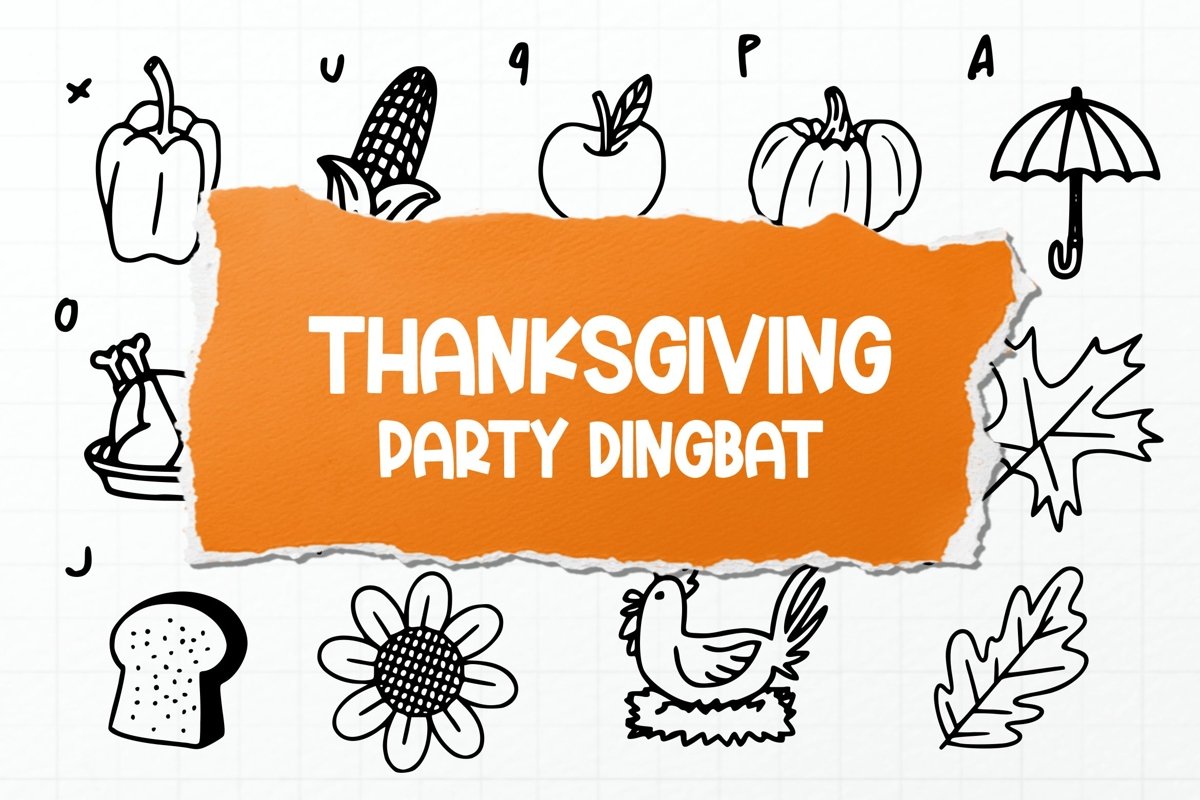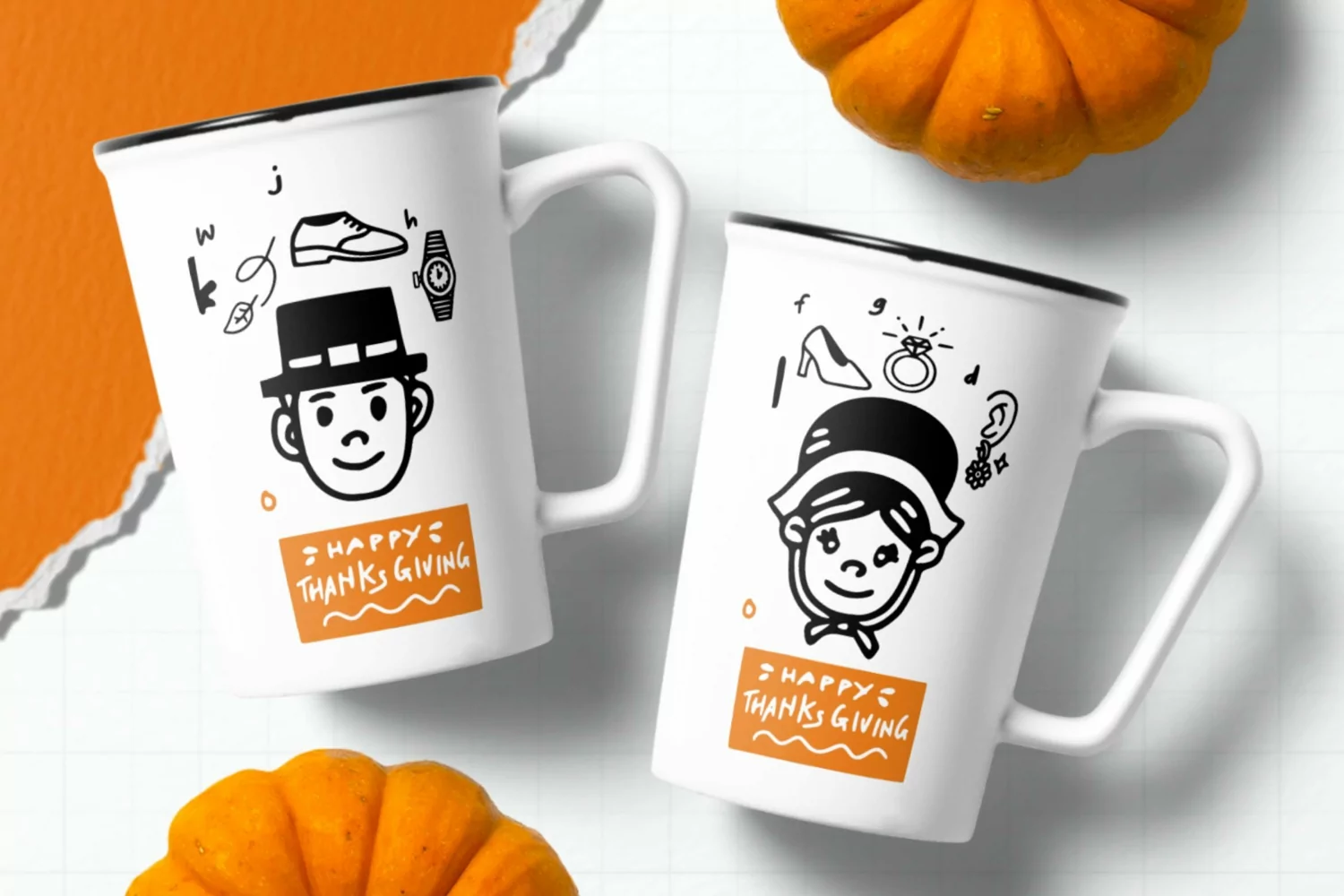
Thanksgiving Party Dingbat Font for some designs such as the logotype, brand, packaging, quotes, music poster, t-shirt, cover book and more custom design. The features uppercase, lowercase, numeral, punctuation & symbol, multilingual support.